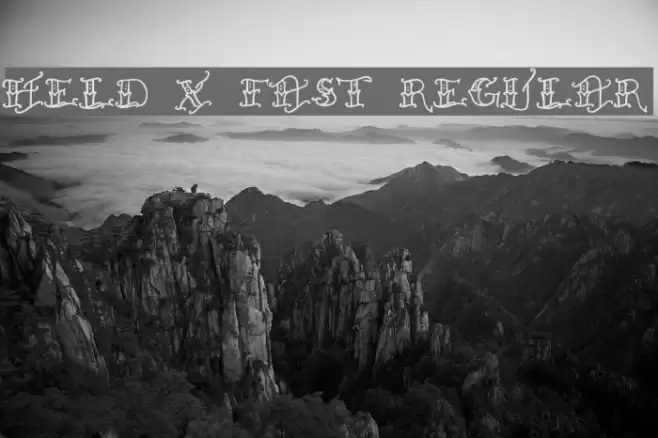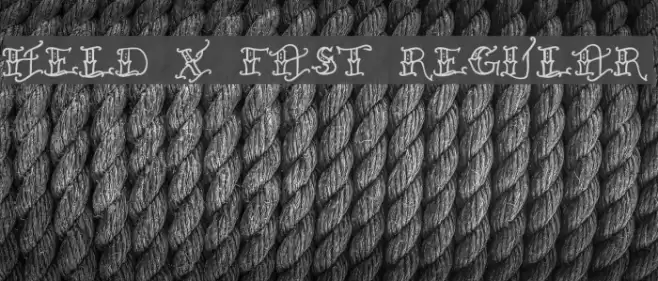
Held x Fast Regular Font
Held x Fast Regular Description
This font features an ornate and decorative style, reminiscent of vintage calligraphy with a modern twist. Each character is adorned with intricate flourishes and embellishments, creating a sense of elegance and sophistication. The uppercase letters are particularly elaborate, with swirling lines and detailed accents that give the font a unique and artistic appearance. The overall design is both bold and delicate, making it suitable for projects that require a touch of class and creativity. The font's intricate details are best appreciated at larger sizes, where the artistry of each letter can be fully appreciated.
An ornate, decorative font with intricate flourishes and vintage calligraphic style from Uncategorized fonts.
- Proposed Projects: Ideal for wedding invitations, luxury branding, vintage-themed posters, and artistic book covers.
- Overall Style: Vintage, Decorative